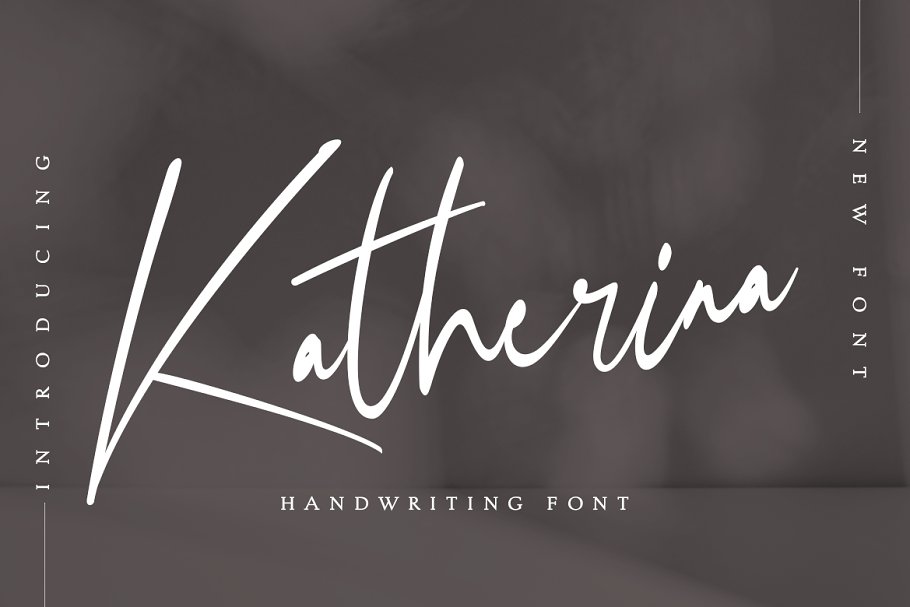
Introducing Katherina - Handwriting Script Font, a mesmerizing addition to your font collection! Crafted with precision and attention to detail by the talented Rizky Alemayo, this font is guaranteed to elevate your designs to new heights.
Whether you're working on a personal project or a professional endeavor, Katherina is the perfect companion. Its versatility allows it to seamlessly enhance any creation, making it an invaluable asset for designers and enthusiasts alike.
With a wide range of features, Katherina offers endless possibilities. The combination of uppercase and lowercase letters, along with numbers and punctuation, ensures that you have everything you need to bring your ideas to life. What's more, this font also provides multilingual support, catering to a global audience.
But what sets Katherina apart is its impeccable attention to detail. Every curve and stroke is meticulously crafted, resulting in a font that exudes elegance and sophistication. Its PUA encoding further adds to its appeal, making it easily accessible and compatible with various software and design platforms.